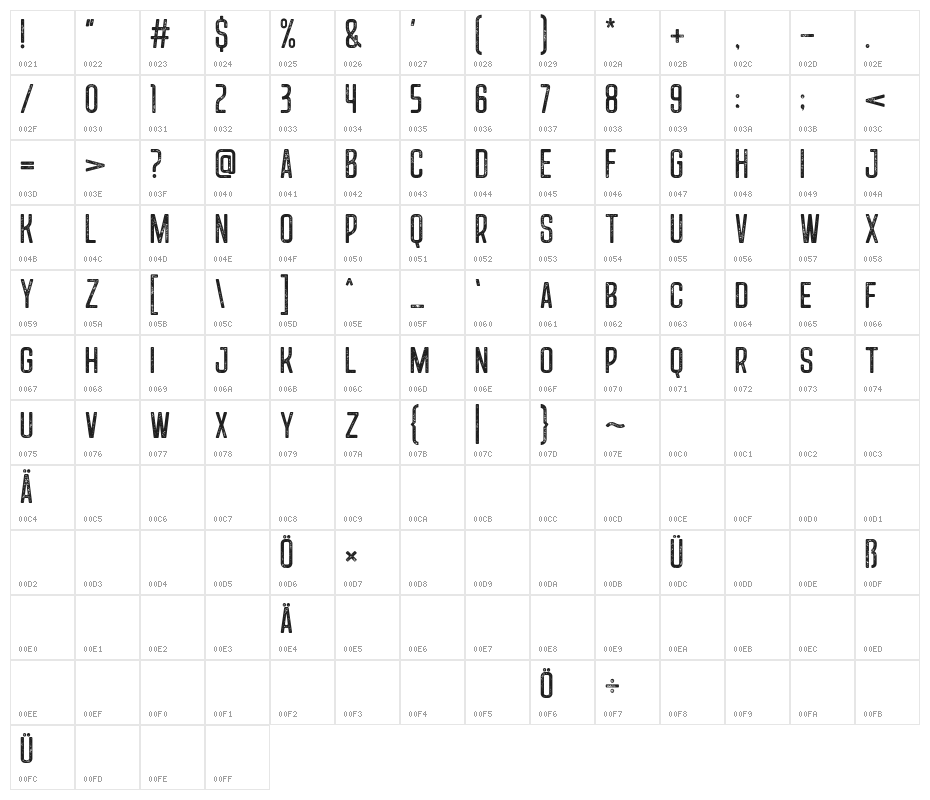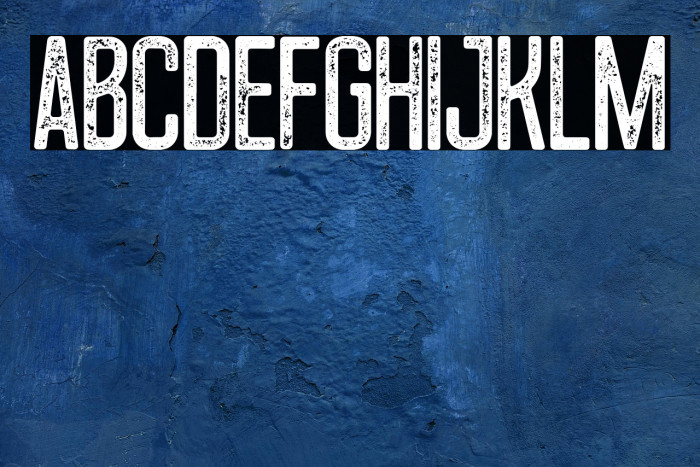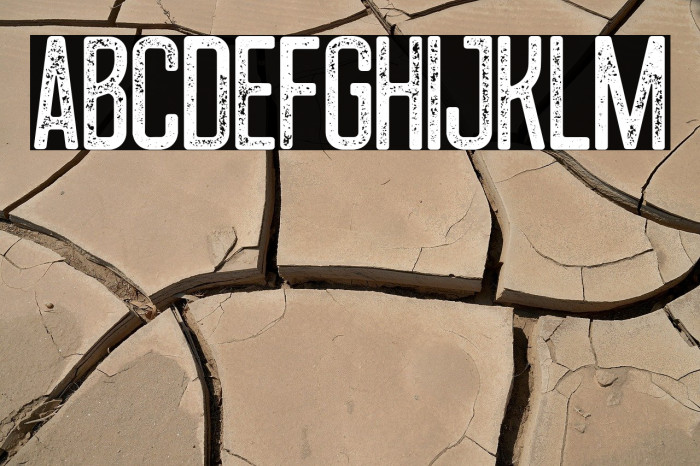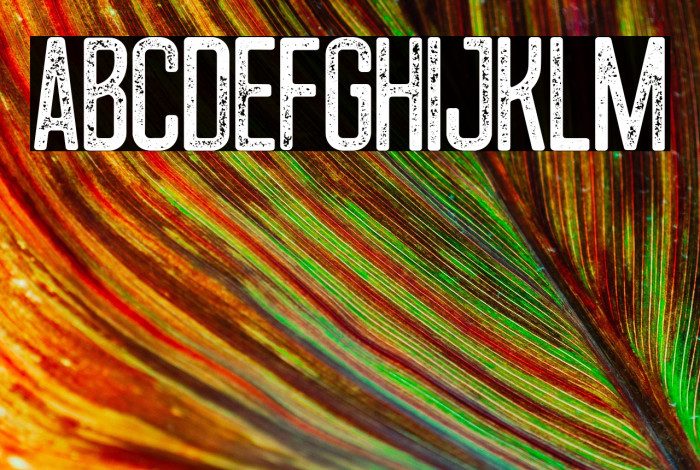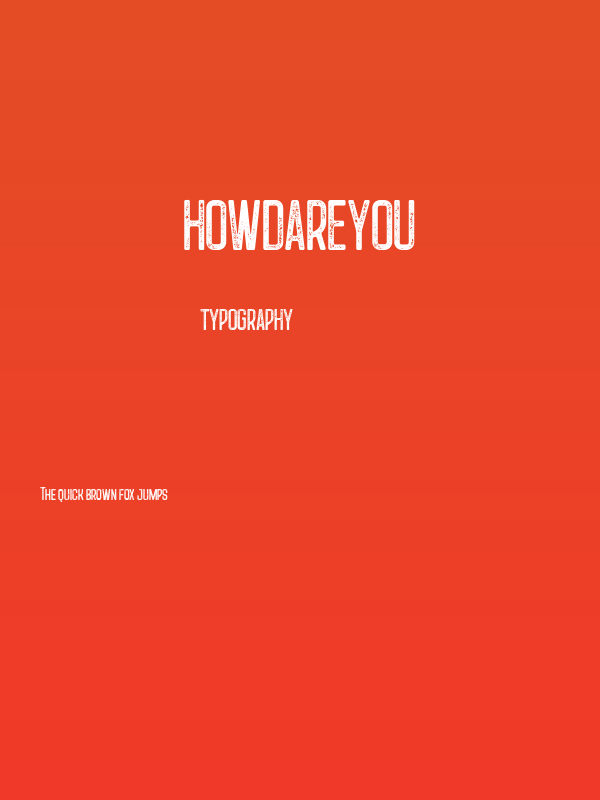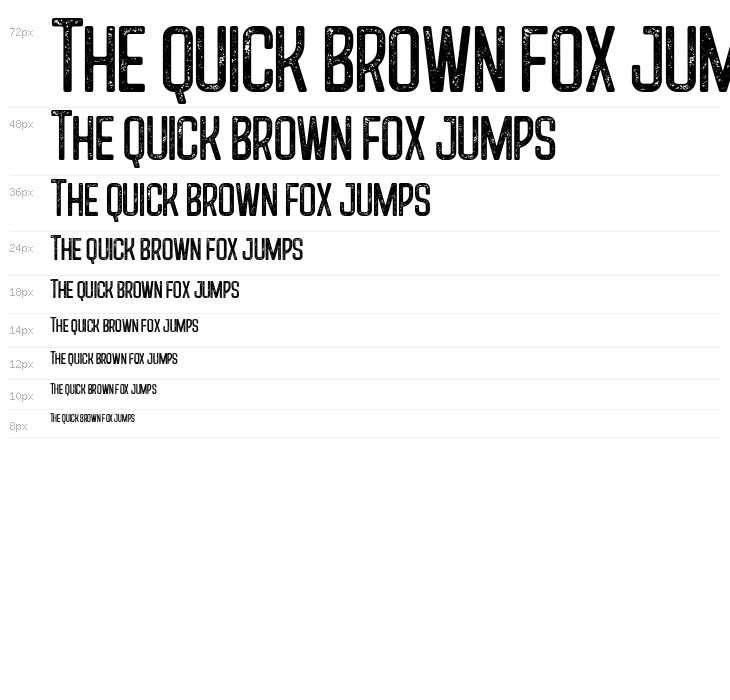
HowDareYou Font
HowDareYou Description
This font features a bold, distressed style with a textured appearance that gives it a rugged and vintage feel. The characters are uppercase and have a uniform height, with a slightly condensed width. The distressed effect is consistent across all characters, adding a sense of age and wear. The numbers and special characters maintain the same stylistic approach, ensuring a cohesive look throughout. This font is ideal for projects that require a strong, impactful visual presence with a touch of nostalgia.
| Width | Condensed |
| Overall Style | Vintage |
| Proposed Projects | Ideal for posters, branding, packaging, and any design requiring a vintage or rugged aesthetic. |